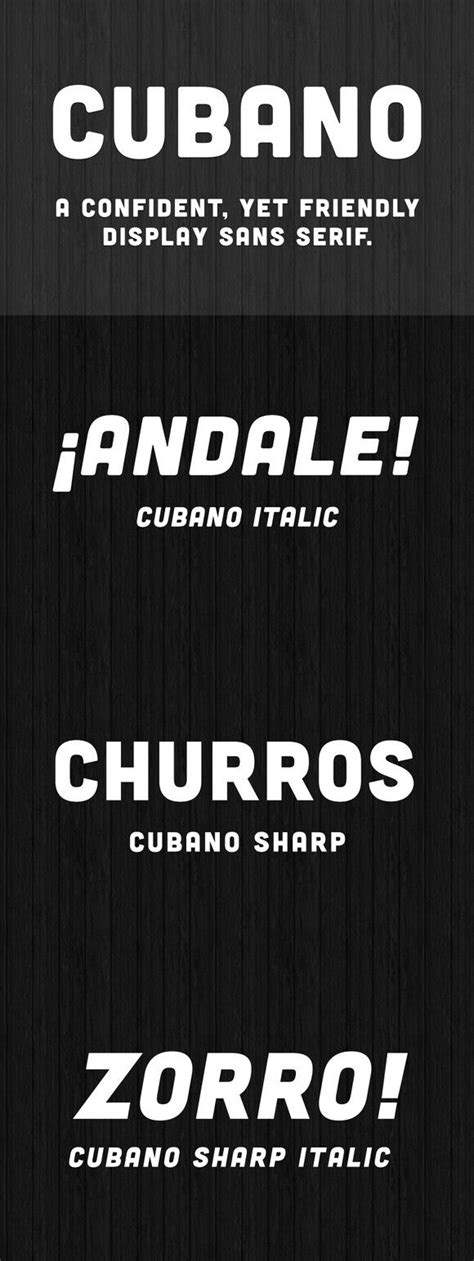
Cubano Sharp Font Free Download - Web cubano | adobe fonts. Explore cubano designed by chandler van de water at adobe fonts. A sans serif typeface with 4 styles,.
Explore Cubano Designed By Chandler Van De Water At Adobe Fonts.
Web cubano | adobe fonts. A sans serif typeface with 4 styles,.